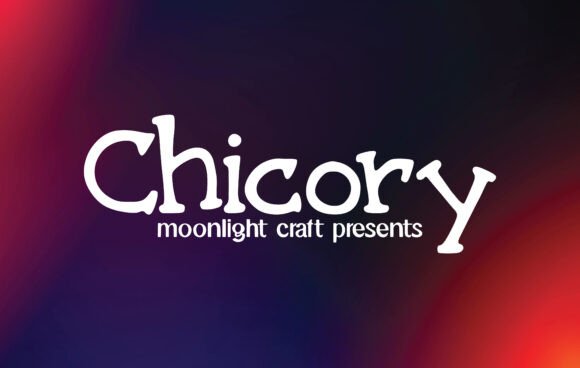
Introducing Chicory Font: Elevate Your Creative Projects with Style and Versatility
In the world of typography, finding the perfect font that combines style, readability, and versatility can be a daunting task. However, if you’re on the hunt for a typeface that can effortlessly elevate your creative projects, look no further than Chicory Font. This beautifully crafted font is designed to become a staple in your collection, offering a seamless blend of elegance and adaptability that suits a wide range of applications.
Aesthetic Appeal and Readability
Chicory Font boasts an aesthetic appeal that is hard to ignore. Its design strikes the perfect balance between modern sophistication and timeless charm, making it an excellent choice for projects where you want to make a lasting impression. But what truly sets Chicory apart is its exceptional readability. Whether you’re using it for titles that need to pop or body text that requires clarity, Chicory delivers on both fronts. Its clear and clean lines ensure that your message is conveyed with precision and style, making it ideal for both digital and print media.
One of the standout features of Chicory Font is its incredible versatility. It’s a font that can seamlessly transition across various mediums and projects. Here are just a few examples of where Chicory Font can make a significant impact:
- Magazine Headlines: Use Chicory to create eye-catching headlines that draw readers in. Its stylish yet legible design ensures that your magazine stands out on the newsstand or digital platforms.
- T-Shirts and Merchandise: Chicory’s unique charm translates beautifully onto apparel and merchandise. Whether you’re designing for yourself or clients, this font will help your message or logo stand out.
- Social Media Posts: In the crowded world of social media, it’s crucial to have a font that cuts through the noise. Chicory helps you create posts that are not only visually appealing but also highly readable on various devices.
- Branding Materials: Establish your brand’s identity with a font that exudes professionalism and style. Chicory can be used across all your branding materials, from business cards to letterheads, ensuring consistency and elegance.
- Wedding Invitations and Greeting Cards: For more personal projects, Chicory offers a touch of sophistication and romance. It’s perfect for wedding invitations, greeting cards, and any other special occasion where you want to convey emotion through typography.
Why Choose Chicory Font?
With so many fonts available, why should Chicory be your go-to choice? Here are a few compelling reasons:
- Unique yet Legible: Chicory strikes a perfect balance between uniqueness and legibility, making it suitable for a wide range of projects.
- Highly Versatile: From digital platforms to print media, Chicory performs exceptionally well across different mediums.
- Easy to Read: Its readability ensures that your audience can easily digest the information you’re presenting, whether it’s in a title or body text.